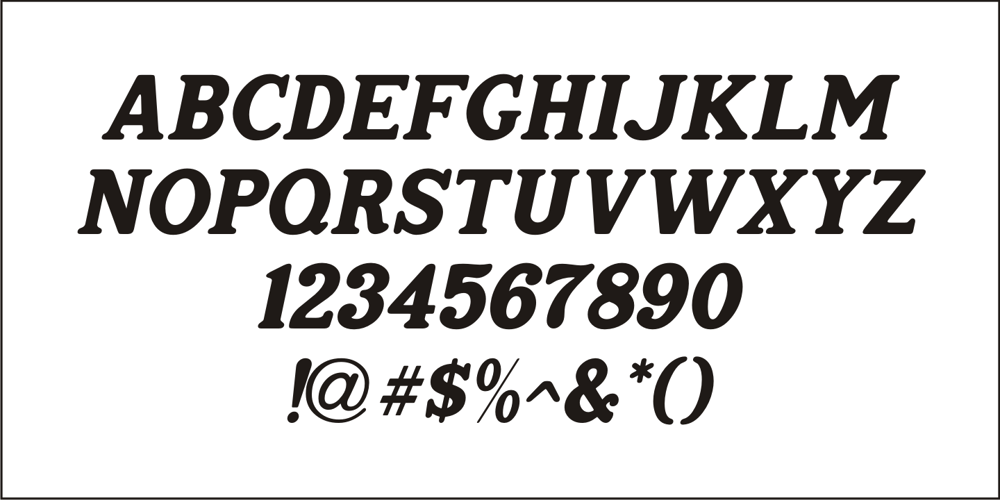
Home Address JNL
Home Address JNL font
Home Address JNL Font Family was designed by Jeff Levine and published by Jeff Levine. Home Address JNL contains 2 styles and family package options. Some vintage Beacon metal door letters used for identifying addresses on home and business buildings was spotted in an online auction from England. Those few letters were the inspiration for Home Address JNL, which is available in both regular and oblique versions.